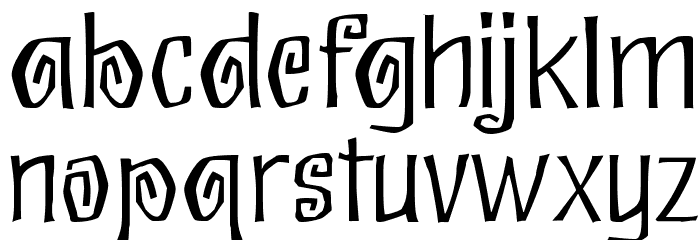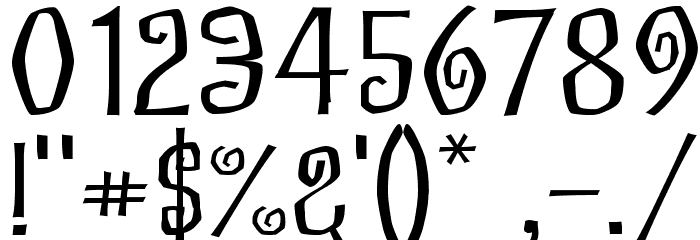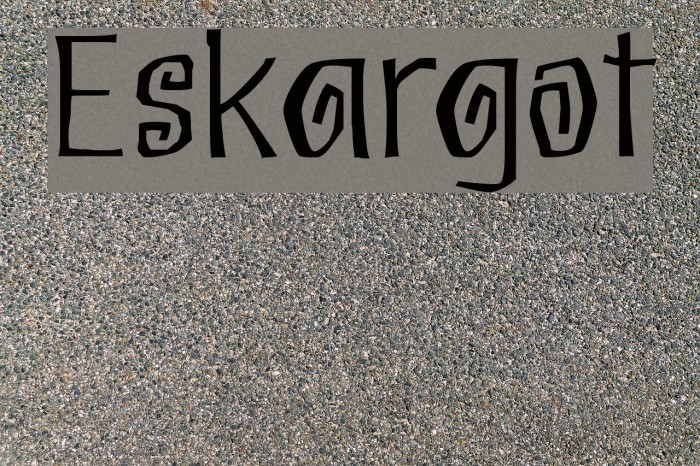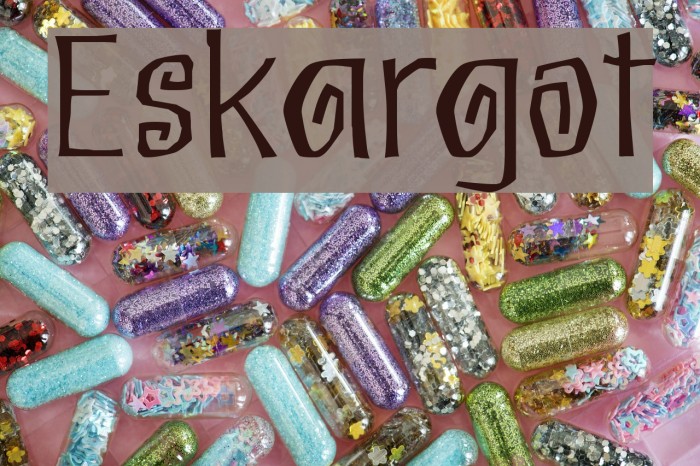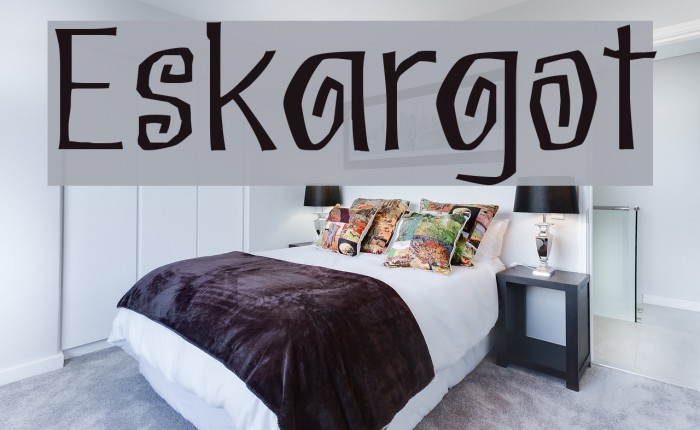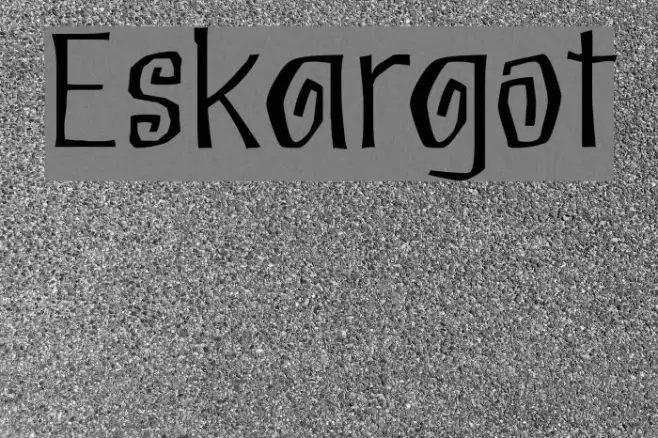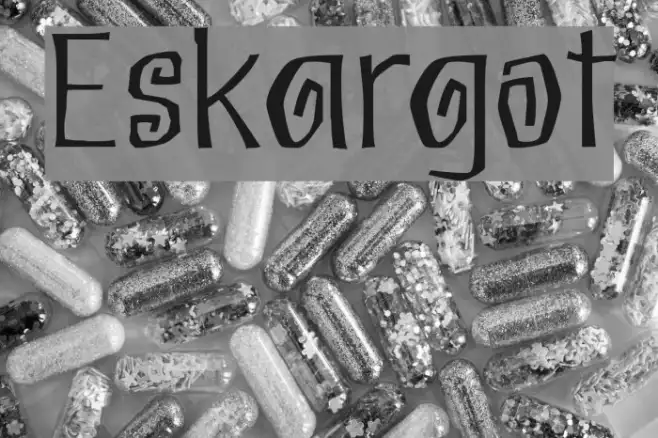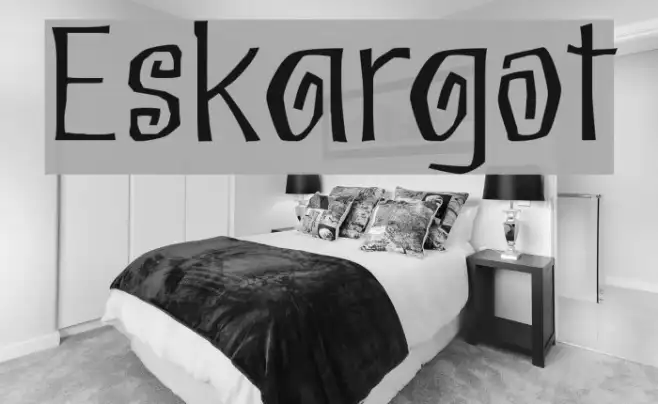
Eskargot Font
This font features a unique and whimsical design with a playful twist on traditional letterforms. The characters exhibit a hand-drawn quality, with irregular strokes and quirky details that give it a lively and dynamic appearance. The uppercase letters are bold and distinct, while the lowercase letters maintain a consistent style with a slightly more relaxed form. Numbers and special characters follow the same playful theme, ensuring a cohesive look across all text. The font's overall style is reminiscent of a decorative or display typeface, making it ideal for creative projects that require a touch of personality and flair.
A whimsical and playful font with hand-drawn, irregular strokes.
- Proposed Projects: Ideal for children's books, greeting cards, playful branding, and creative posters.